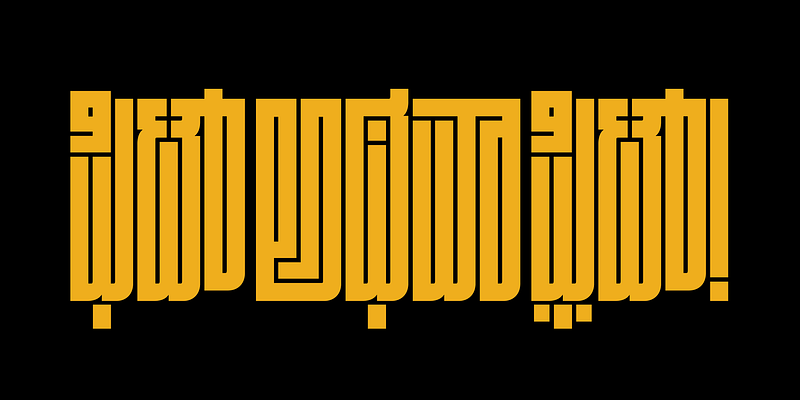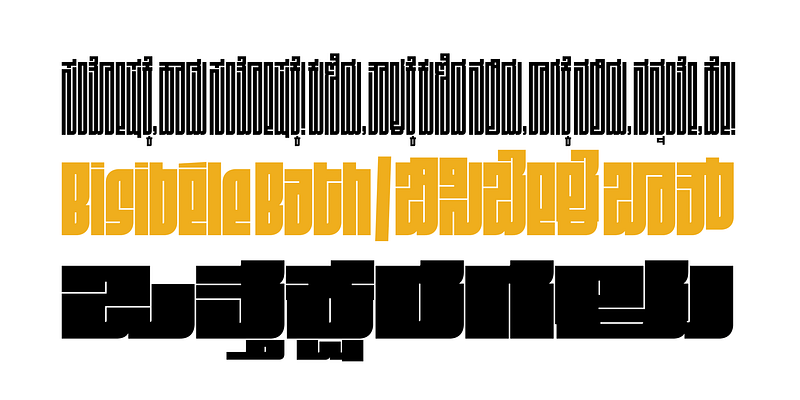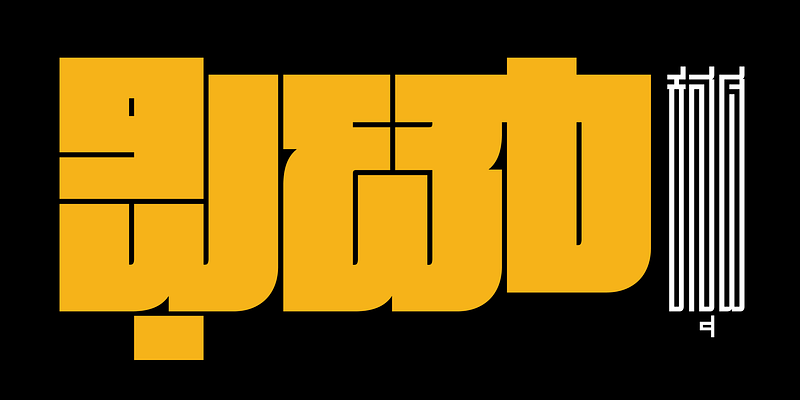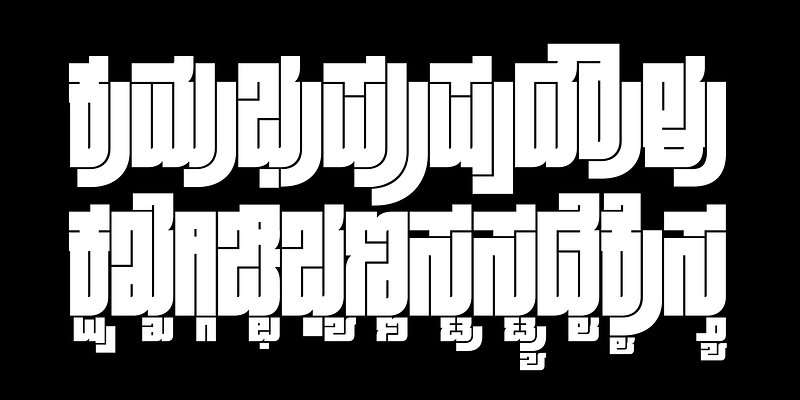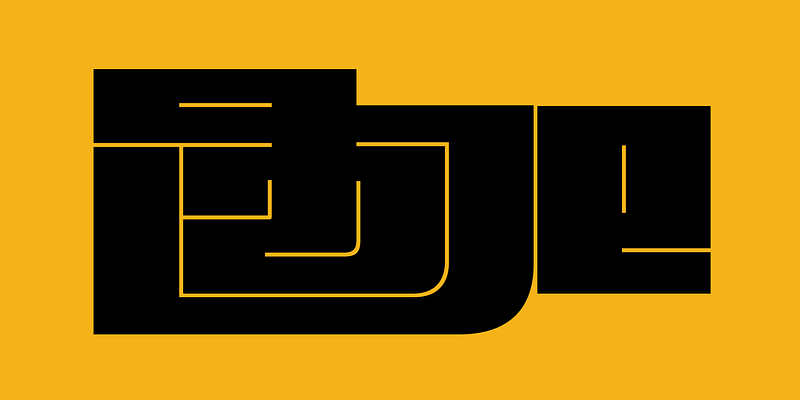
Fit is a hyper-stylized typeface designed with one goal: to fill space with maximum impact. With an expansive range of widths, Fit can take almost any text and make it work within almost any space. Fit Kannada interprets the script’s complex conjuncts and vowel-sign formations through the modular squeeze of Fit’s visual grammar. Fit Kannada navigates the fine line between legibility, authenticity, and experimentation.